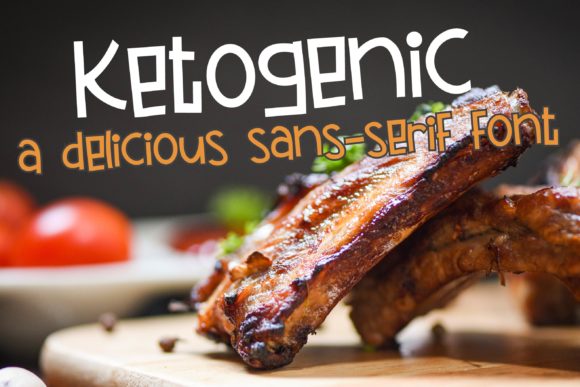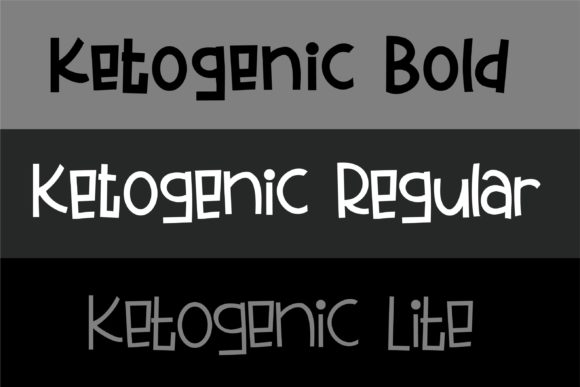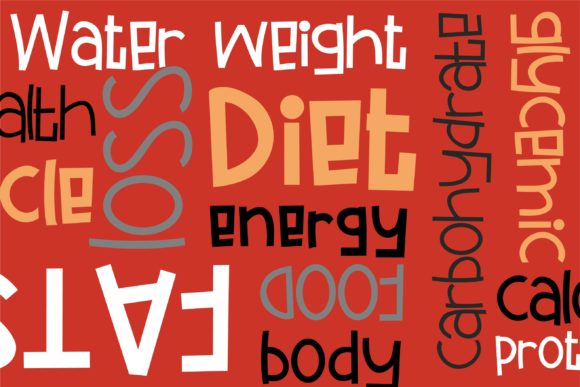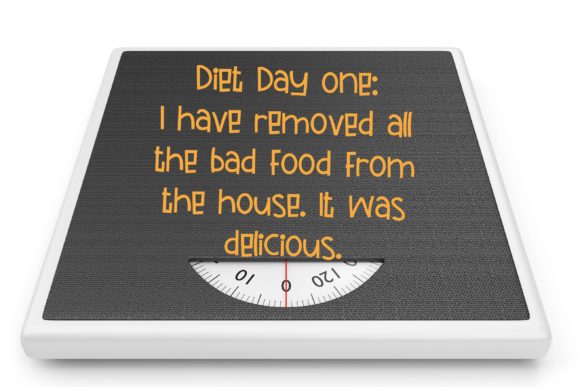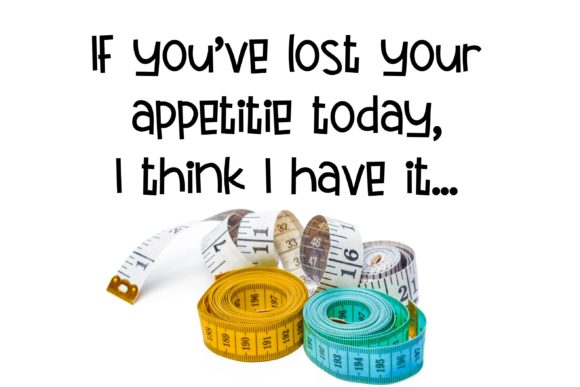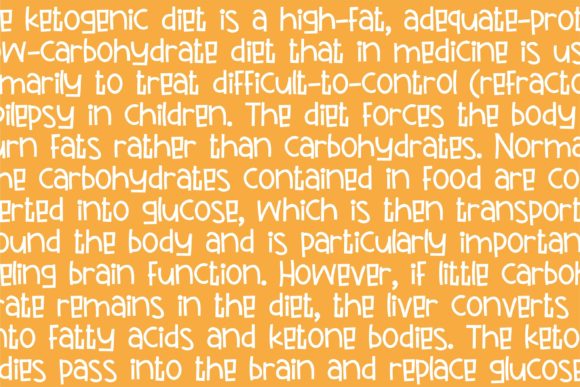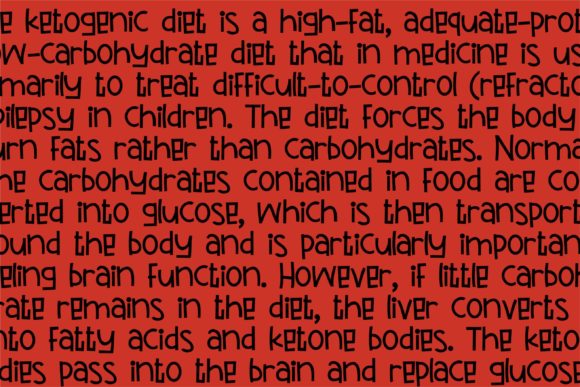
Ketogenic Font
About Ketogenic Font
This hand-crafted, sans serif font comes in lowercase and features several boxy letters. Ignite your creativity with its quirky charm.